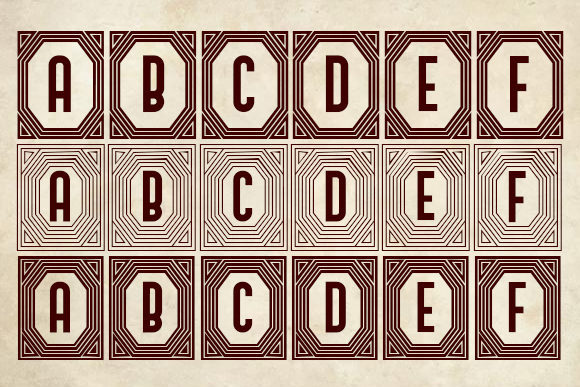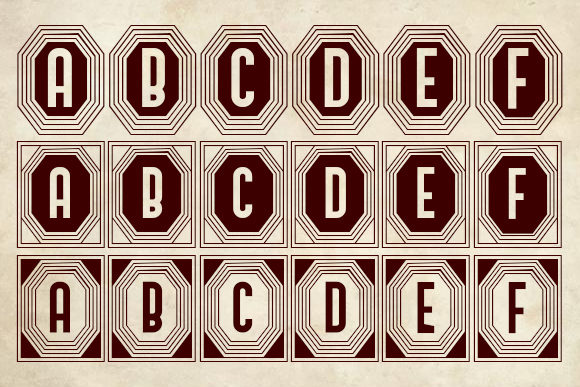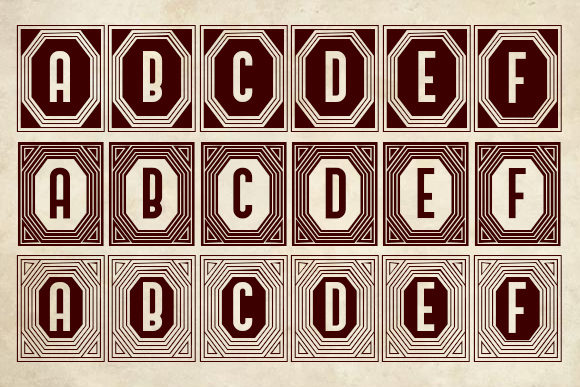
The Birth of a New Era: Capitalismo Font
Have you ever been in the middle of a creative project, staring at a blank page or screen, and suddenly, the perfect font pops into your head? That’s exactly what happened to the designers behind the stunning Capitalismo Font family. They envisioned a world where typography could elevate any design, and with Capitalismo, they’ve made that vision a reality.
Capitalismo Font is a comprehensive capital font family that consists of 13 variants, each with its unique character and charm. Its purpose is to provide designers with a versatile tool to add depth and sophistication to their work. Whether you’re working on a logo, a website, or a magazine spread, Capitalismo Font is sure to impress. Its value lies in its ability to convey professionalism, elegance, and style, making it a valuable addition to any designer’s toolkit.
Key Features of Capitalismo Font
- Font Family: Capitalismo Font is a sans-serif font family designed for digital use. It is available in three weights: Light, Regular, and Bold.
- Size and Resolution: Capitalismo Font is optimized for use at medium to large sizes, typically between 12 and 24 points, and is designed to be clear and readable at resolutions of 72 dpi and higher.
- Unique Characteristics: The font features a clean and modern design with a unique geometric feel, making it suitable for a wide range of applications, from corporate branding to digital interfaces.
- Language Support: Capitalismo Font supports a wide range of languages, including Latin, Cyrillic, and Greek scripts, making it a versatile choice for global branding and communication.
- Kerning and Glyphs: The font includes advanced kerning and glyph sets, ensuring that text is displayed with optimal spacing and clarity, even in complex layouts and compositions.
Designer Review: Capitalismo Font
Overall, I was quite impressed with Capitalismo Font. The designer has done an excellent job in creating a modern, bold font that can easily be used in a variety of contexts, from branding to advertising. ✨
- Capitalismo Font has a unique, modern aesthetic that sets it apart from other fonts.
- The font is highly customizable, with a wide range of weights and styles to choose from.
- It’s extremely legible, even at small font sizes.
- It’s a great choice for digital displays, such as websites and mobile apps.
Limitsations:
- ⚠️ The font may not be suitable for formal or professional contexts, as it has a more casual, playful feel.
- ⚠️ It may not be the best choice for text-heavy content, as it can be a bit overwhelming at large font sizes.
- ⚠️ Some users may find the font too bold or attention-grabbing.
Overall, I’d say that Capitalismo Font is a great choice for designers looking for a modern, bold font. While it may not be suitable for every context, it’s definitely worth considering for the right project. With a bit of caution and consideration, Capitalismo Font can add a lot of visual interest and energy to a design.
Capitalismo Font is a versatile font that can be used for a variety of designs, from logos to brochures.
To get the most out of Capitalismo Font, experiment with different font sizes, colors, and styles to find the perfect combination for your design.
Also, consider pairing Capitalismo Font with other fonts to create a unique and visually appealing design.
Capitalismo Font is commonly used for:
1. Logos and branding materials
2. Brochures and flyers
3. Social media graphics
4. Business cards and stationery